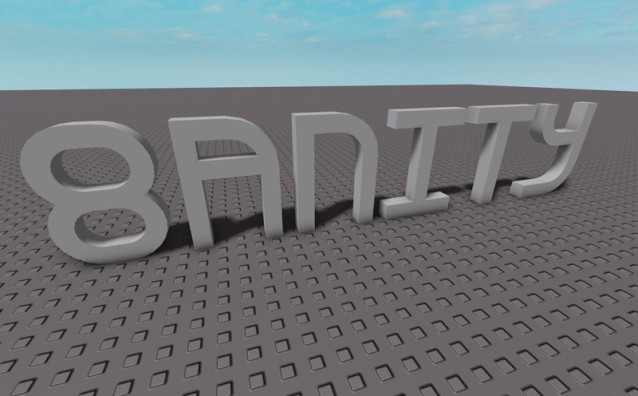
8anity Font, this is a font based off of the letters a user named ‘8anity’ on roblox made. enjoy!
8anity Font
| Classification: | Display Fonts, Sans Serif Fonts, Techno / Futuristic Fonts |